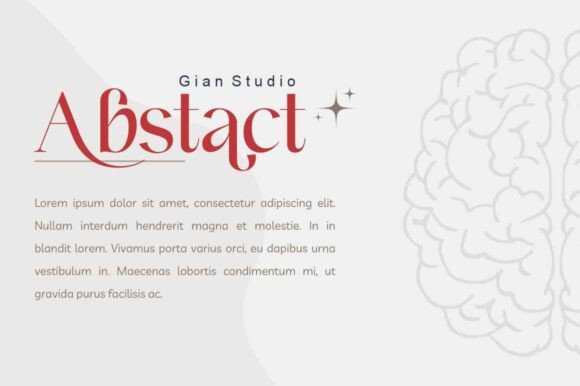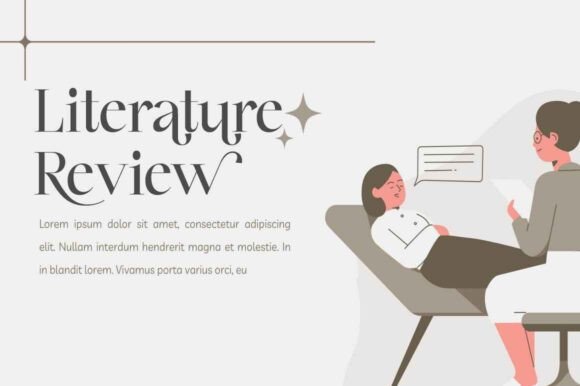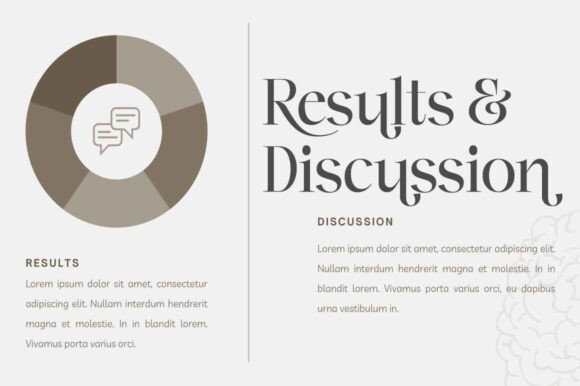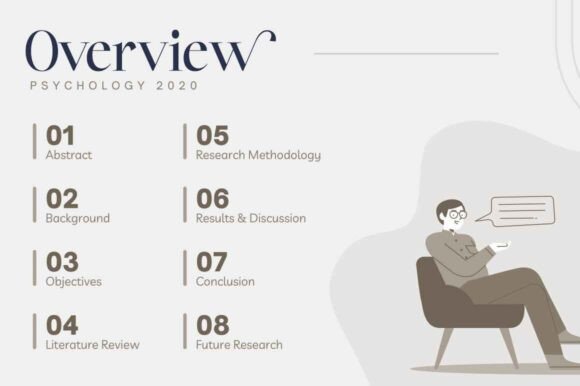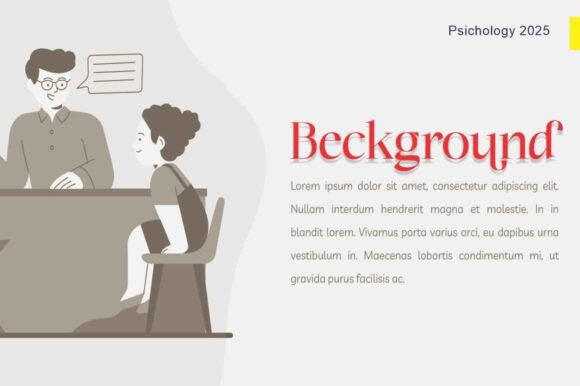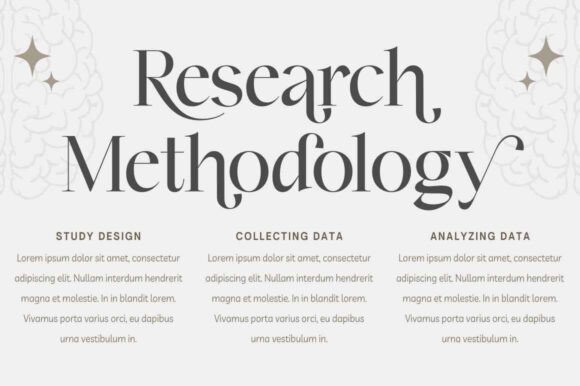
Introduction to Helvellyn Serif Font
Helvellyn Serif is a sophisticated ligature and alternate Serif font.
This typeface has been made carefully to make sure its premium quality and luxury feel The ligatures and alternates makes this typeface unique and stands out rather than the regular Serif font.
Helvellyn Serif Font offers exceptional quality and versatility, making it a valuable addition to your design toolkit. Whether you’re creating for personal projects or commercial use, Helvellyn Serif Font delivers professional results.